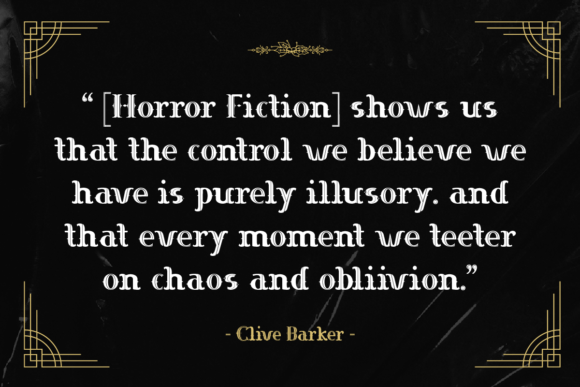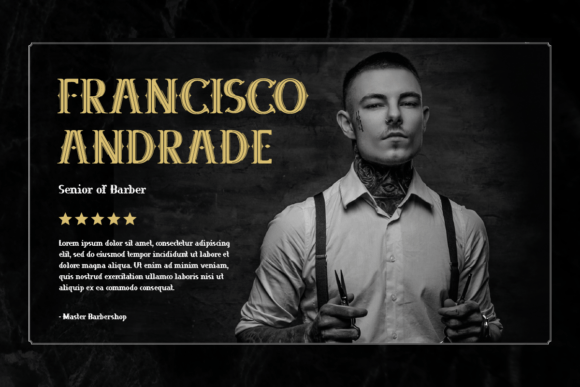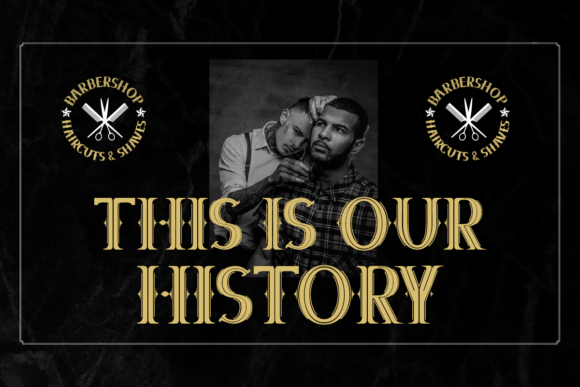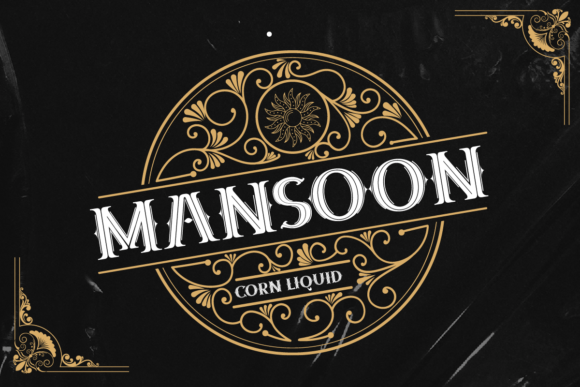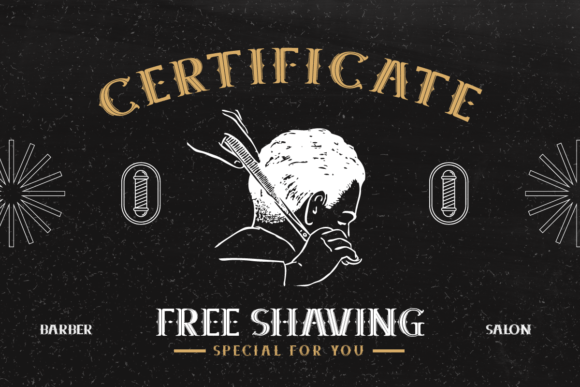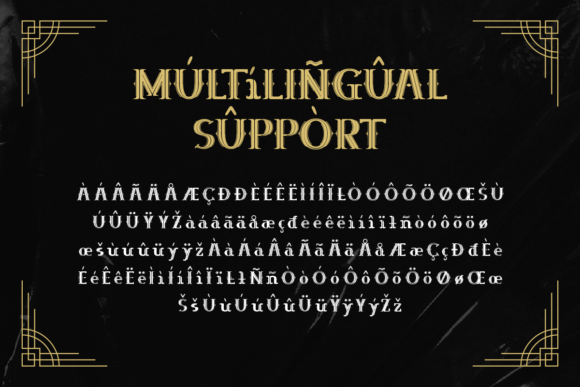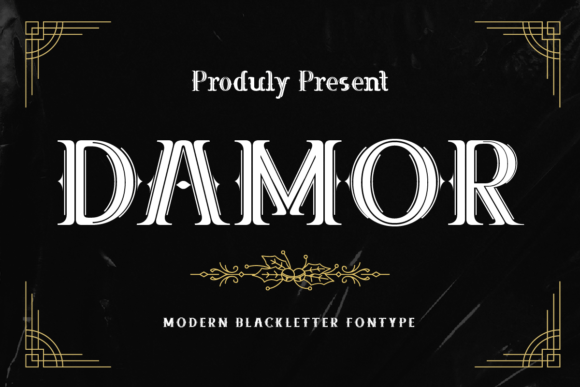
Damor Font – The Perfect Blend of Vintage Modern Typography
In the world of typography, fonts play a crucial role in conveying the tone and aesthetic of a design. With numerous font styles available, finding the perfect one that combines classic elegance with modern flair can be a daunting task. However, if you’re looking for a typeface that embodies the perfect blend of vintage modern typography, look no further than Damor Font.
What is Damor Font?
Damor is a typeface with a vintage modern theme that is suitable for various design purposes. This font is carefully crafted to offer a unique and elegant look to any design, making it an excellent choice for designers and crafters. With its classic details and modern style, Damor Font is perfect for creating visually appealing designs that capture the attention of potential customers.
Key Features of Damor Font
So, what makes Damor Font stand out from the rest? Here are some of its key features:
- Vintage Modern Theme: Damor Font boasts a vintage modern theme that gives it a unique and distinctive look.
- Classic Details: The font features classic details that add an touch of elegance to any design.
- Modern Style: Damor Font’s modern style ensures that it stays relevant and fresh, making it perfect for contemporary designs.
- Versatility: This font is suitable for use in various design projects, such as logos, posters, greeting cards, and more.
Why Choose Damor Font?
With so many fonts available, why should you choose Damor Font for your design projects? Here are some compelling reasons:
- Attention-Grabbing: Damor Font can grab the attention of potential customers in just 60 seconds, thanks to its classic yet modern appearance.
- Elegance: The font’s elegant look makes it perfect for designs that require a touch of sophistication.
- Versatility: Damor Font’s versatility ensures that it can be used in various design projects, from logos to posters and greeting cards.
- Easy to Read: The font’s clear and readable design makes it easy for audiences to quickly understand the message being conveyed.
How to Use Damor Font in Your Designs
Using Damor Font in your designs is easy and straightforward. Here are some tips to get you started:
- Logos: Use Damor Font to create stunning logos that capture the essence of your brand.
- Posters: Add a touch of elegance to your posters with Damor Font’s classic modern style.
- Greeting Cards: Create beautiful greeting cards with Damor Font’s elegant and sophisticated look.
- Digital Marketing Materials: Use Damor Font in your digital marketing materials, such as social media graphics and email templates, to add a touch of class and sophistication.
In conclusion, Damor Font is the perfect blend of vintage modern typography, making it an excellent choice for designers and crafters. With its classic details, modern style, and versatility, Damor Font is suitable for various design purposes. Whether you’re creating logos, posters, greeting cards, or digital marketing materials, Damor Font is sure to grab the attention of potential customers and add a touch of elegance to your designs.